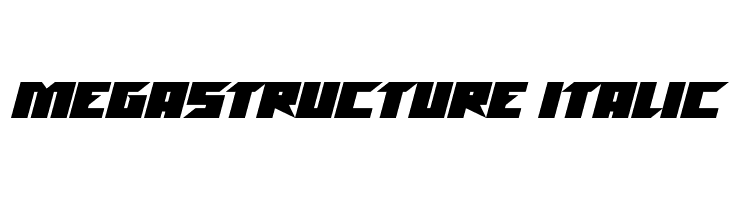
A bold, italic font with sharp angles and high contrast, perfect for dynamic designs.
A bold, italicized font with sharp, angular edges and a dynamic appearance.
A bold, geometric font with sharp angles and a futuristic style.
A bold, angular, and futuristic italic font with a dynamic, geometric design.
A bold, modern font with thick, block-like letters and high contrast.
A futuristic, geometric font with sharp angles and clean lines.